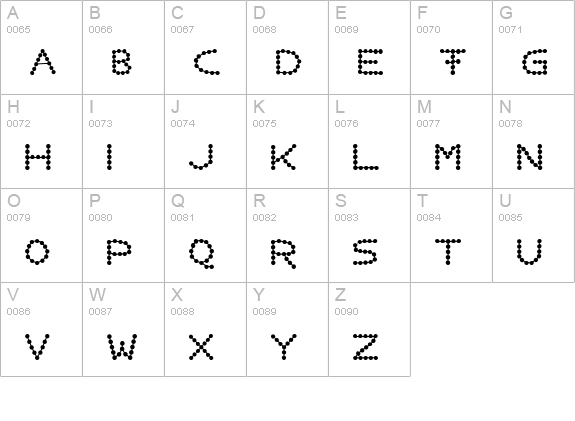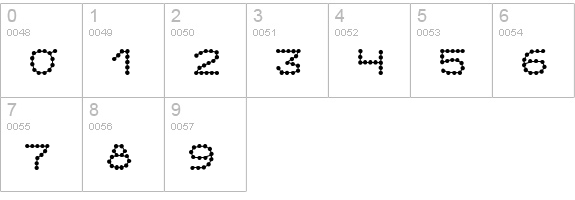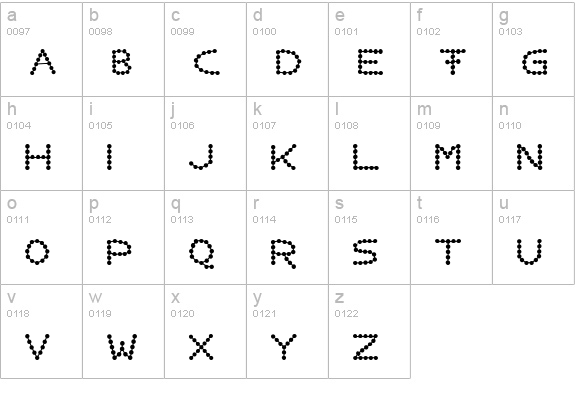
Perlenkette Font Details
Introducing Perlenkette, a stunningly elegant font that will add a touch of sophistication to any design project. With its delicate curves and graceful lines, Perlenkette exudes a timeless beauty that is sure to captivate and enchant. This exquisite font is perfect for a wide range of applications, from wedding invitations and elegant branding to editorial design and luxury packaging. Its versatility allows it to effortlessly adapt to any style or concept, making it a must-have for designers and creatives alike. Perlenkette stands out not only for its impeccable aesthetics but also for its exceptional quality. Each letter has been meticulously crafted to ensure clarity and legibility, even at smaller sizes. This attention to detail sets Perlenkette apart and guarantees a professional and polished finish to every project. What makes Perlenkette even more remarkable is that it is freely available to download at FontsMarket.com. This means that you can easily access this exquisite font without any barriers, making it a valuable addition to your font library. Whether you are a seasoned designer or just starting out, Perlenkette offers an opportunity to elevate your creativity without any financial constraints. So, why wait? Enhance your designs with the timeless elegance of Perlenkette font today. Download it for free at FontsMarket.com and unlock a world of limitless possibilities for your next project.